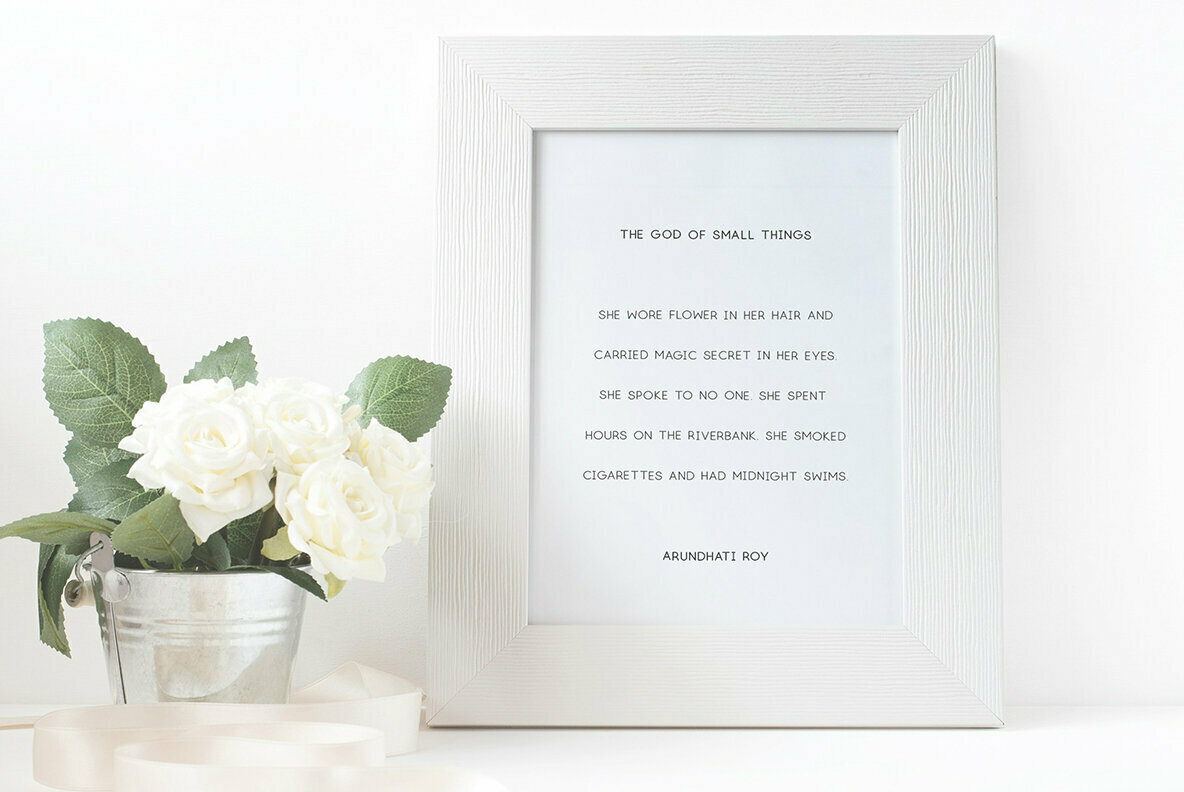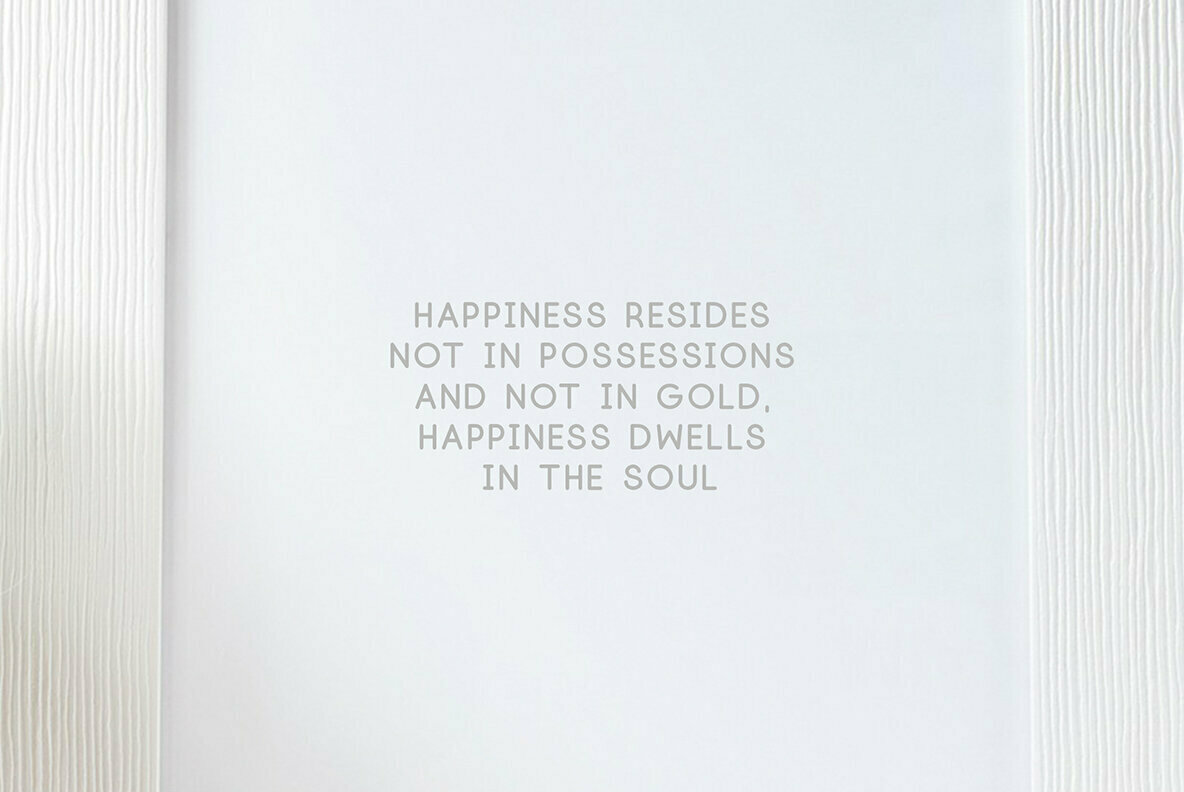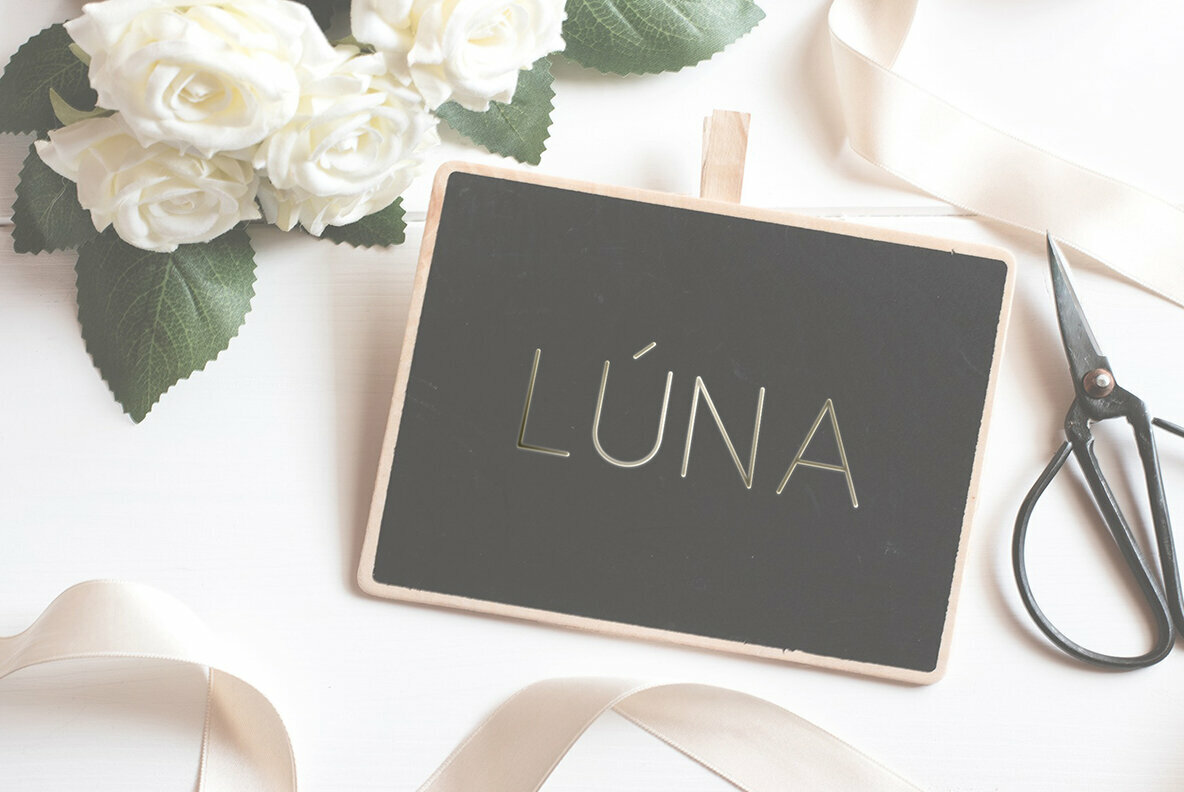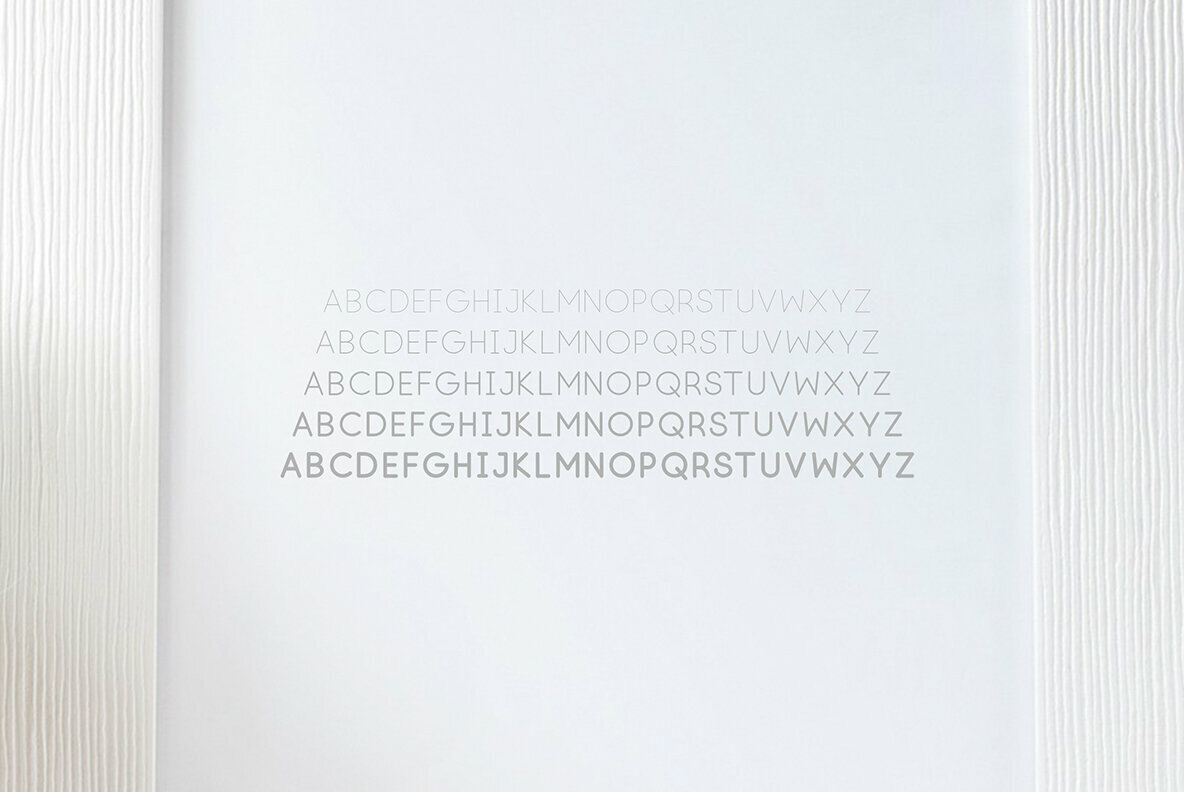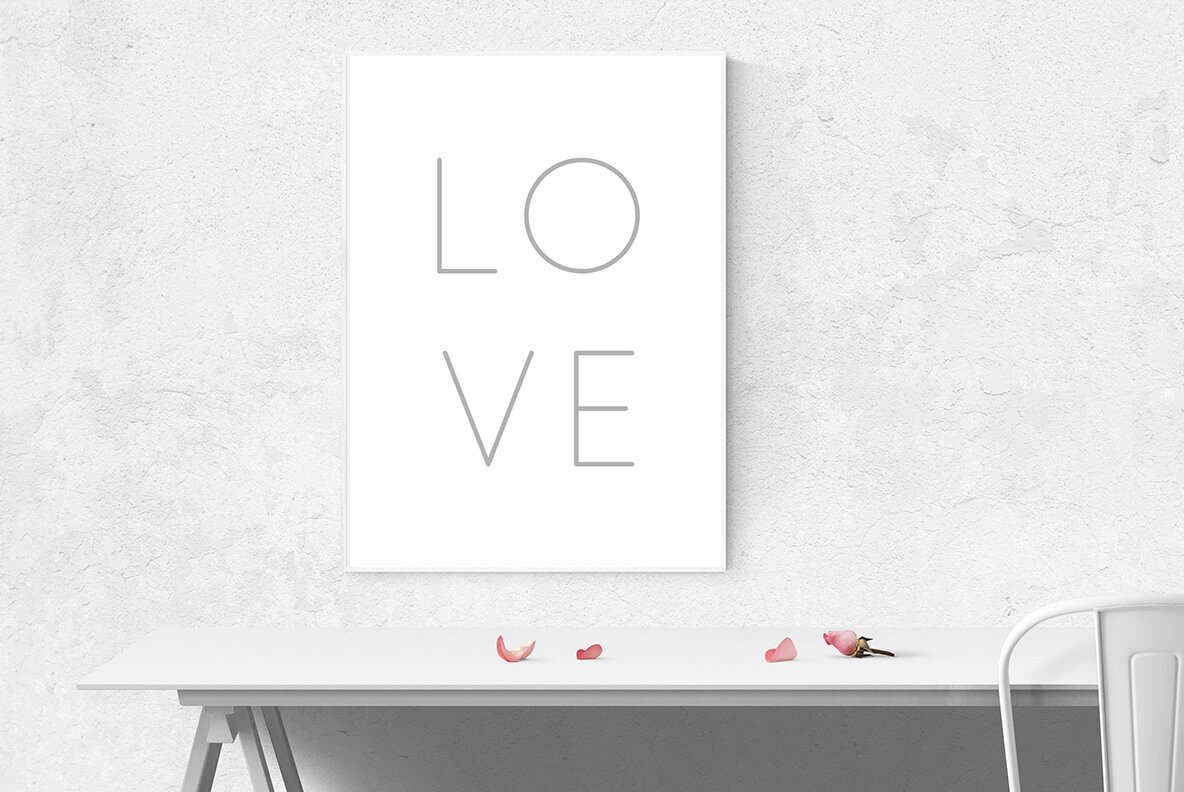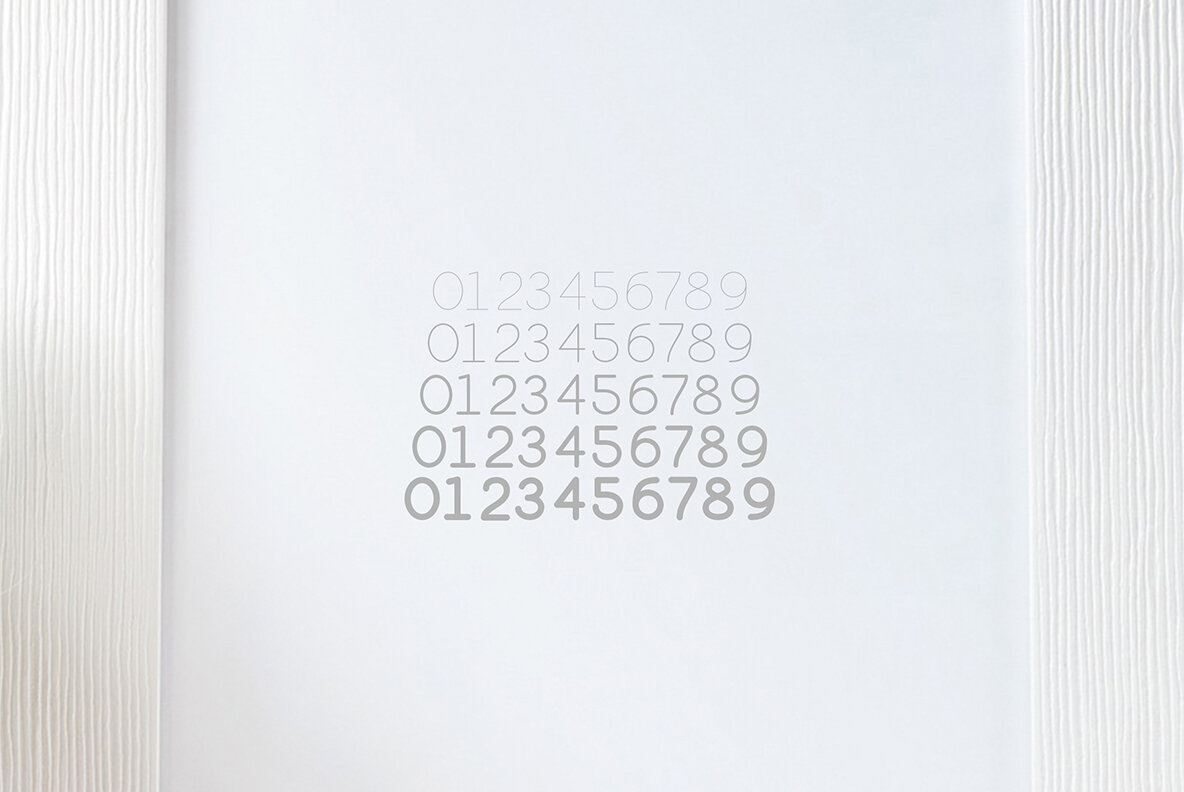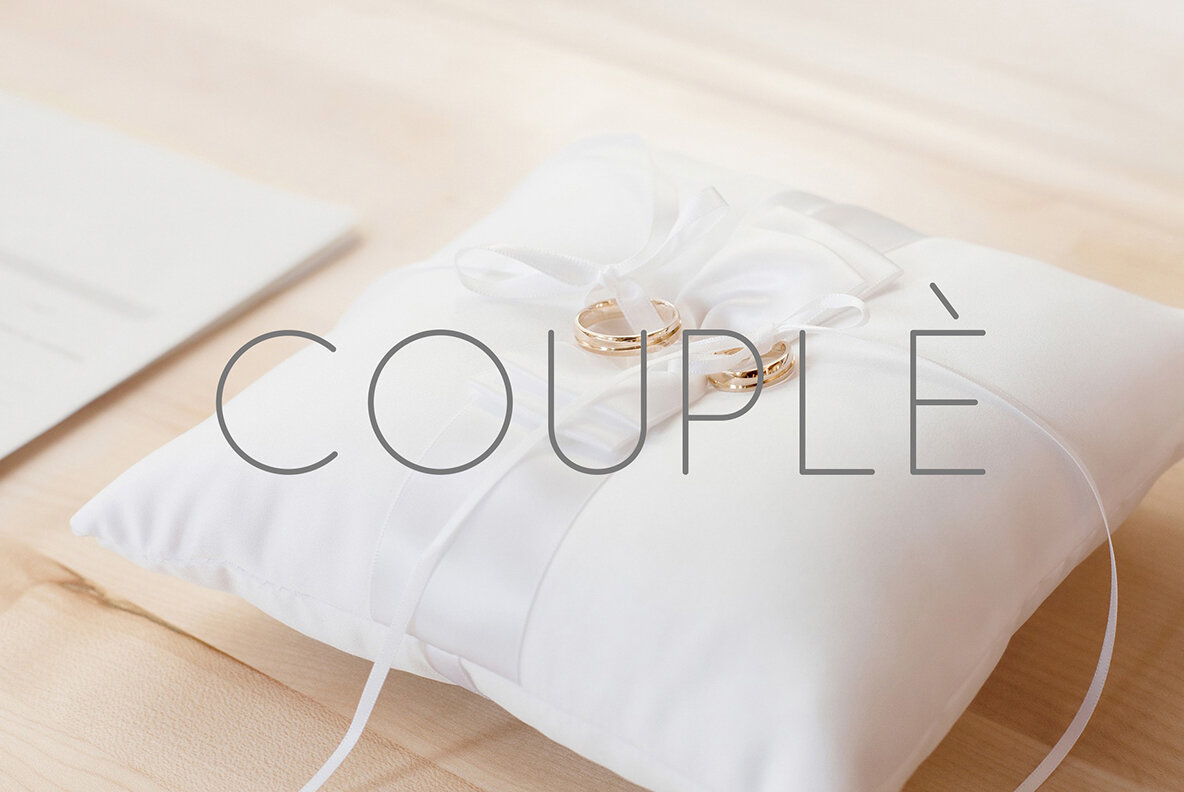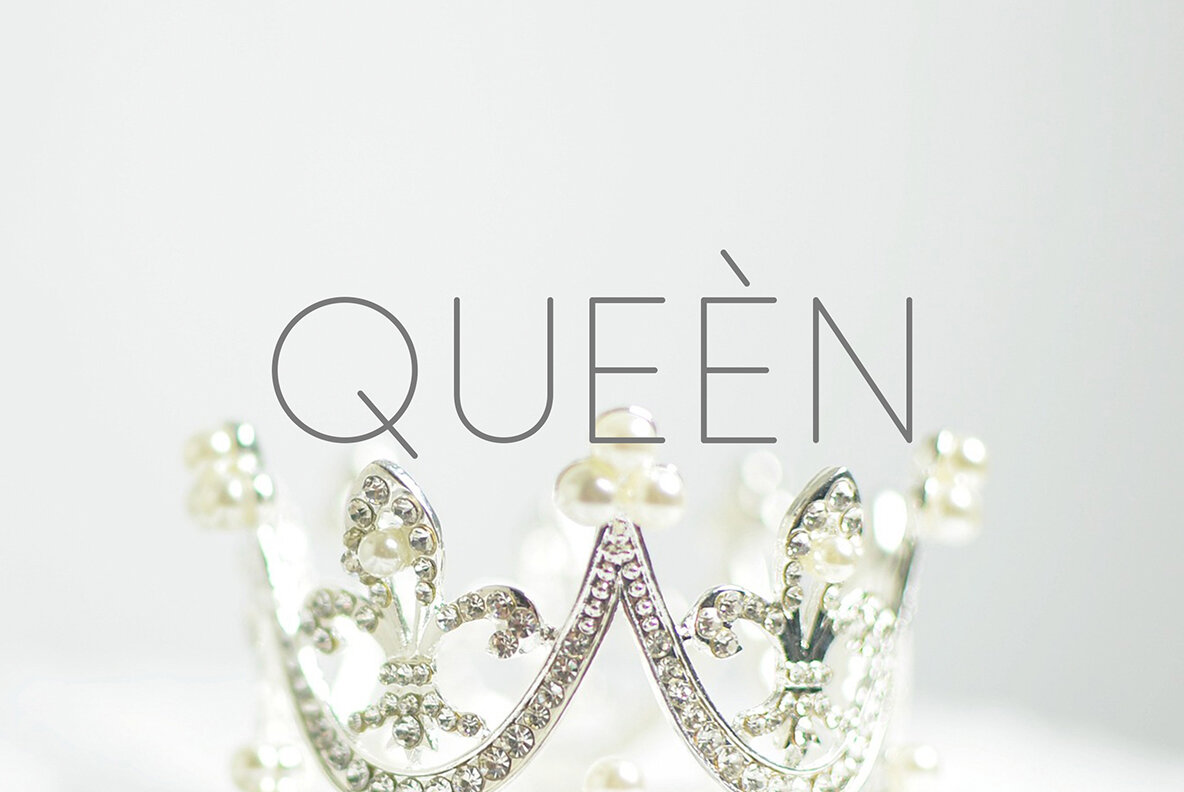
Luna: A Charming Typeface for All Your Design Needs
Meet Luna, a typeface that seamlessly adapts to a variety of design projects. Whether creating striking logos, elegant magazine layouts, or sophisticated wedding invitations, Luna offers an inviting versatility that caters to your every creative need. Its usage spans a broad spectrum, from vibrant cards to detailed designs, ensuring that your work communicates effectively and beautifully.
• Multilingual Support – Flexibly accommodates various languages, making it a useful tool for global designers.
• Aesthetic Versatility – Perfect for logos, magazines, weddings, and more, ensuring a cohesive visual presence.